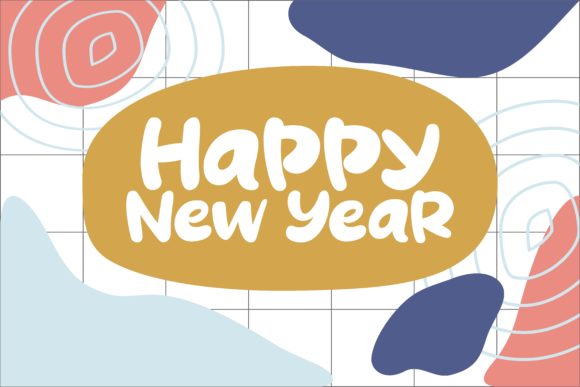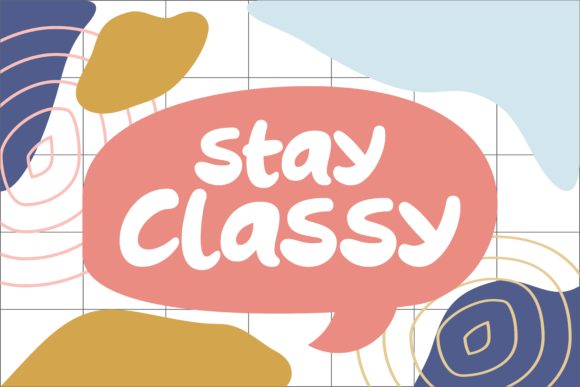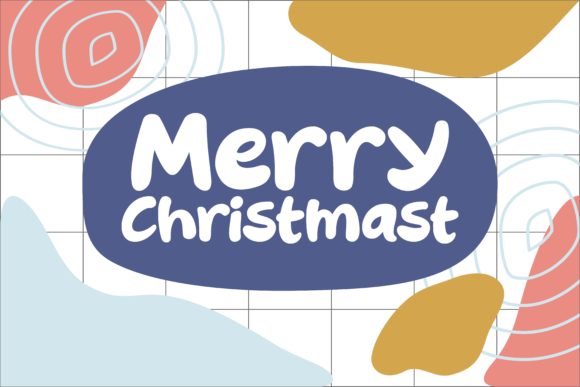
HomeScript FontsRuko Font Script Fonts Ruko Font FacebookXPinterestWhatsApp Ruko Font Poster 2 Ruko Font Poster 3 Ruko Font Poster 4 About Ruko Font Ruko is a classy, yet raw script that will effortlessly turn any design project into a true piece of art! DOWNLOAD ON CREATIVE FABRICAThis font is sold and delivered by Creative Fabrica. Font Canyon may earn a commission if you buy through this link. People also explored Grinch Font Cherry Lime Font Hilstoria Font Winter Planner Font Hype Font About Decor Leaves Font Chocolate Candy Cups Font Quiczzi Font Brokolino Text Font 355 0 TagsRuko Font Previous articlePlayback FontNext articleShigutto Bofon Font LEAVE A REPLY Cancel reply Comment: Please enter your comment! Name:* Please enter your name here Email:* You have entered an incorrect email address! Please enter your email address here Website: Save my name, email, and website in this browser for the next time I comment. Personal Use Free Ayam Bakar Personal Use Free Read more about this font Axaxax Bold Personal Use Free Read more about this font Micahel Personal Use Free Read more about this font Christmas Diary Personal Use Free Read more about this font BLOG The 10 Best Handwriting Fonts to Add Personality to Your Designs 10 of the Best Handwriting Fonts for Adding Personality to Your Designs There will undoubtedly be no other better choice than handwriting fonts to give... Elegant Wedding Invitation Fonts – Handwritten & Script Fonts How to Cut Any Font on Cricut: Convert a Font to SVG (Free) Transform Your Website: Elevate Your Typography with 7 Best Web Font Generators